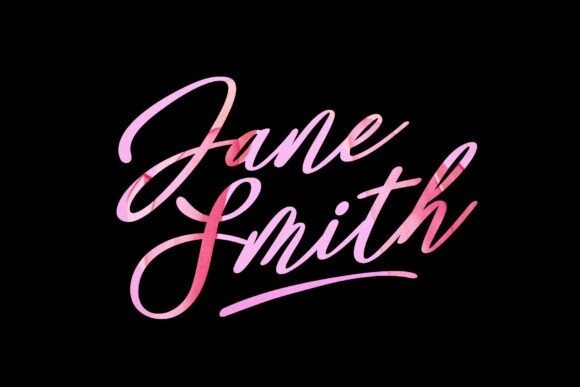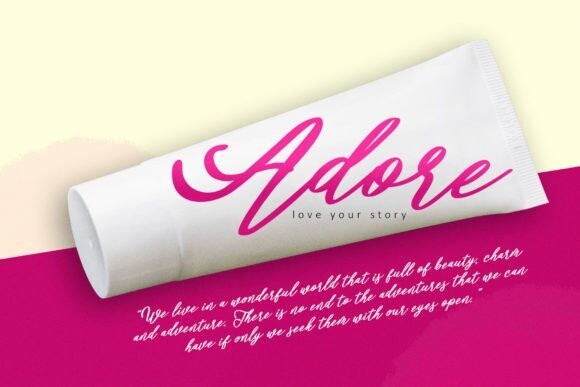
Glow Up Font
Glow Up is a lovely and timeless handwritten font. It is the best choice for creating eye-catching logos, branding, and quotes. Every letter has a unique and beautiful touch, which will make your design come alive!